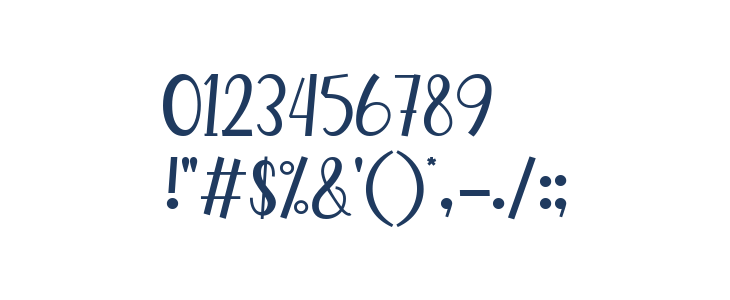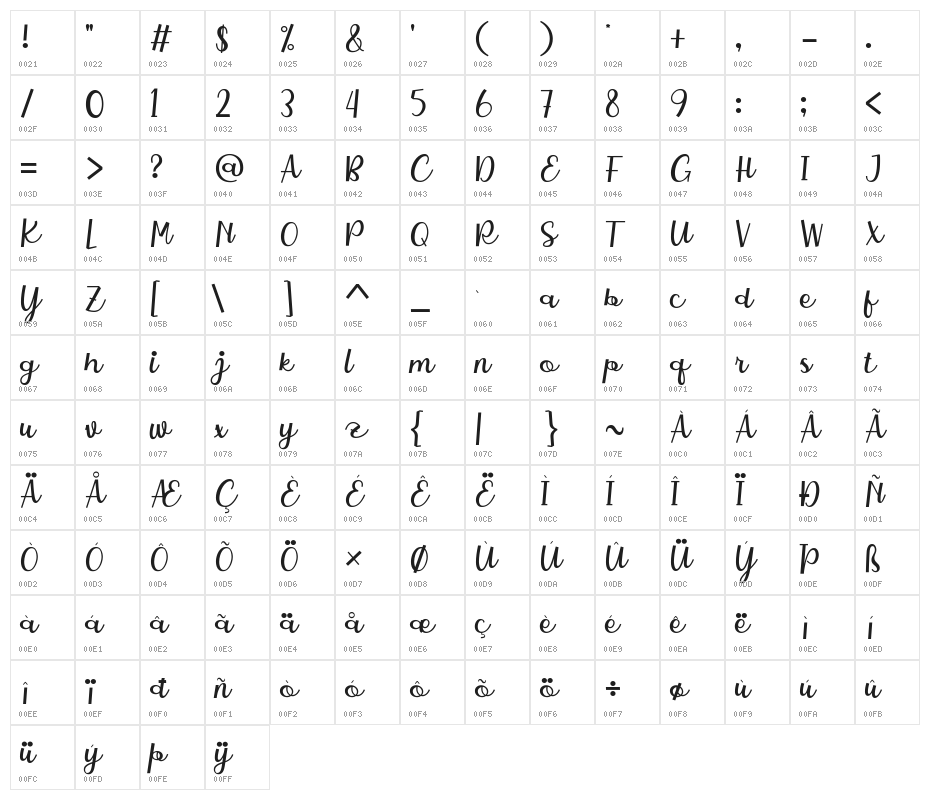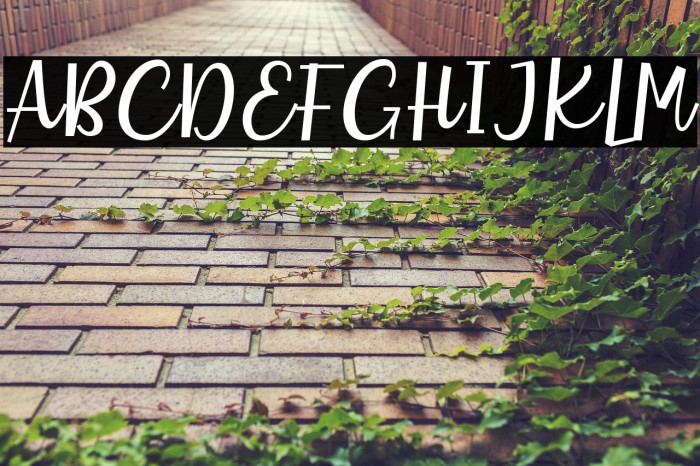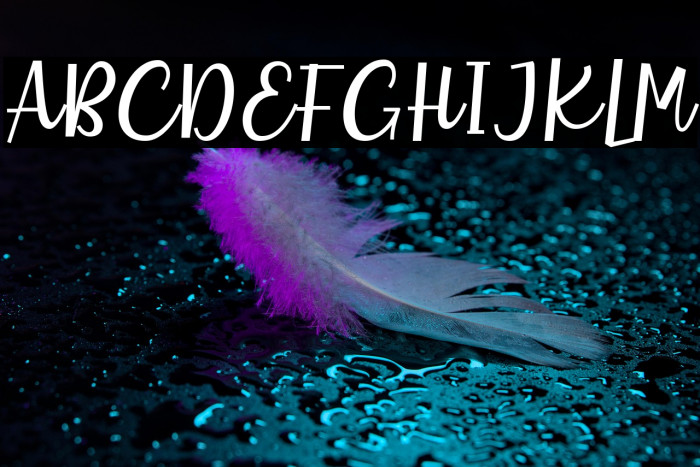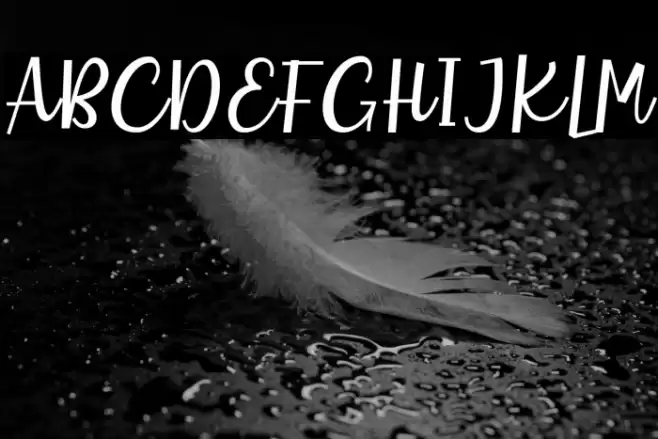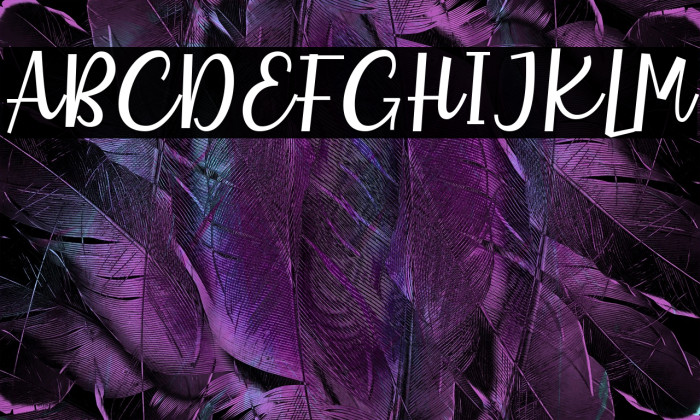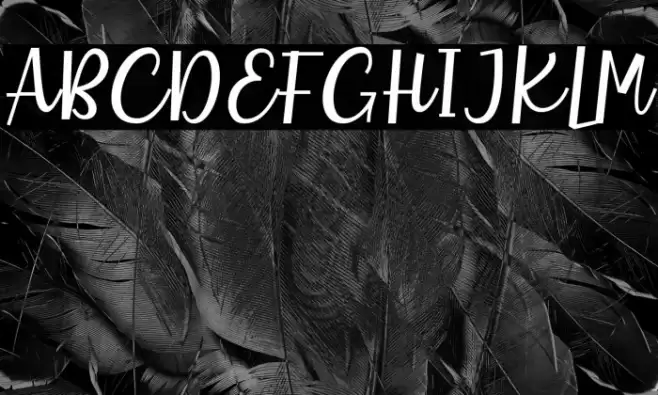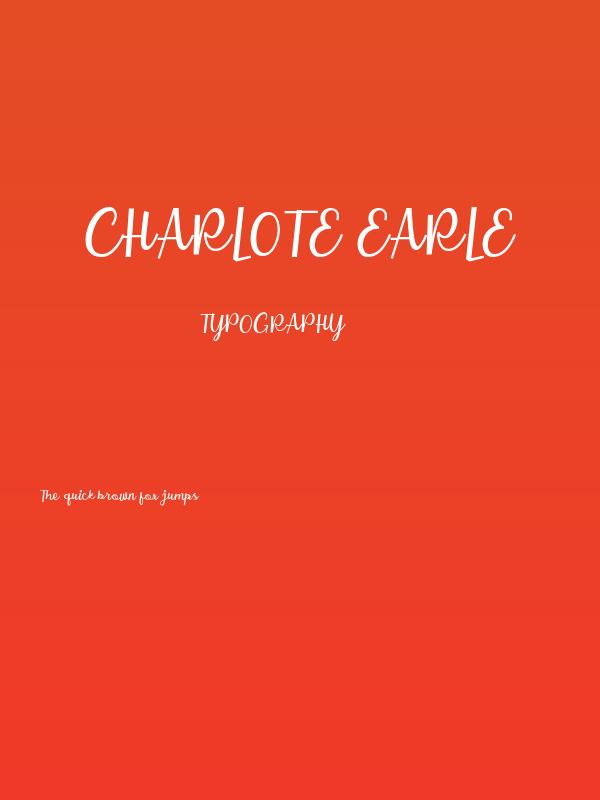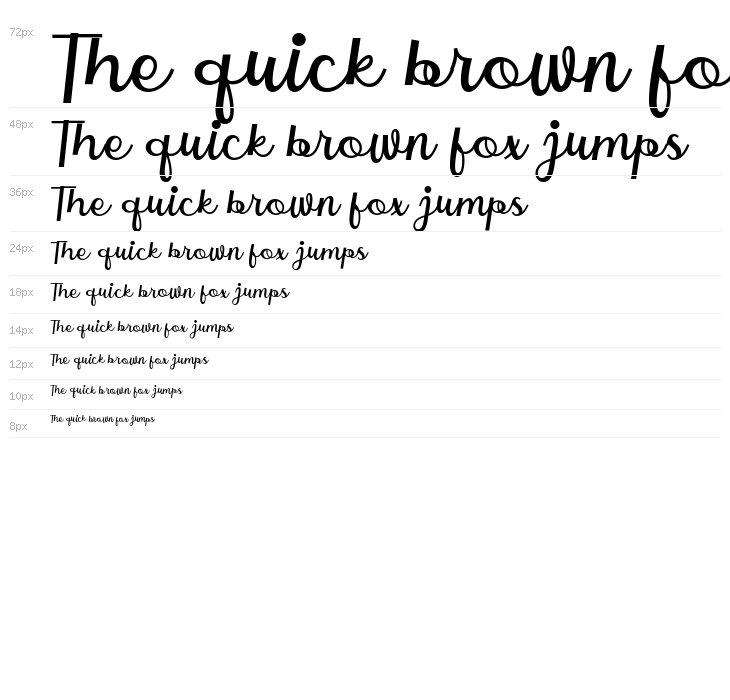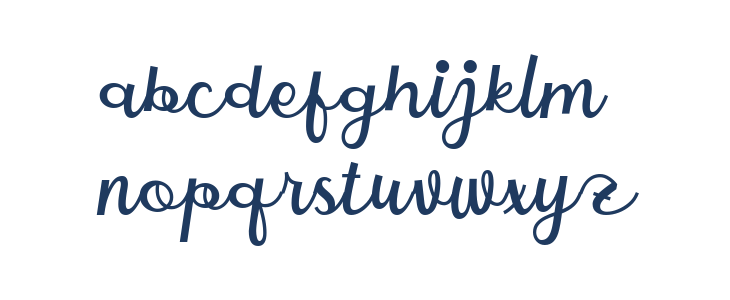
Charlote Earle Font
Charlote Earle Description
This font features a dynamic and playful style, combining elements of both script and sans-serif characteristics. The uppercase letters exhibit a bold, slightly slanted form with a touch of whimsy, while the lowercase letters are more fluid and cursive, adding a sense of elegance and movement. The numerals are consistent with the uppercase style, maintaining the bold and slightly angled appearance. Special characters are creatively designed, complementing the overall aesthetic. The font's unique blend of styles makes it versatile for various design applications.
| Use Case | Logos, Headlines, Creative designs |
| Proposed Projects | Ideal for branding, invitations, greeting cards, and creative posters. |